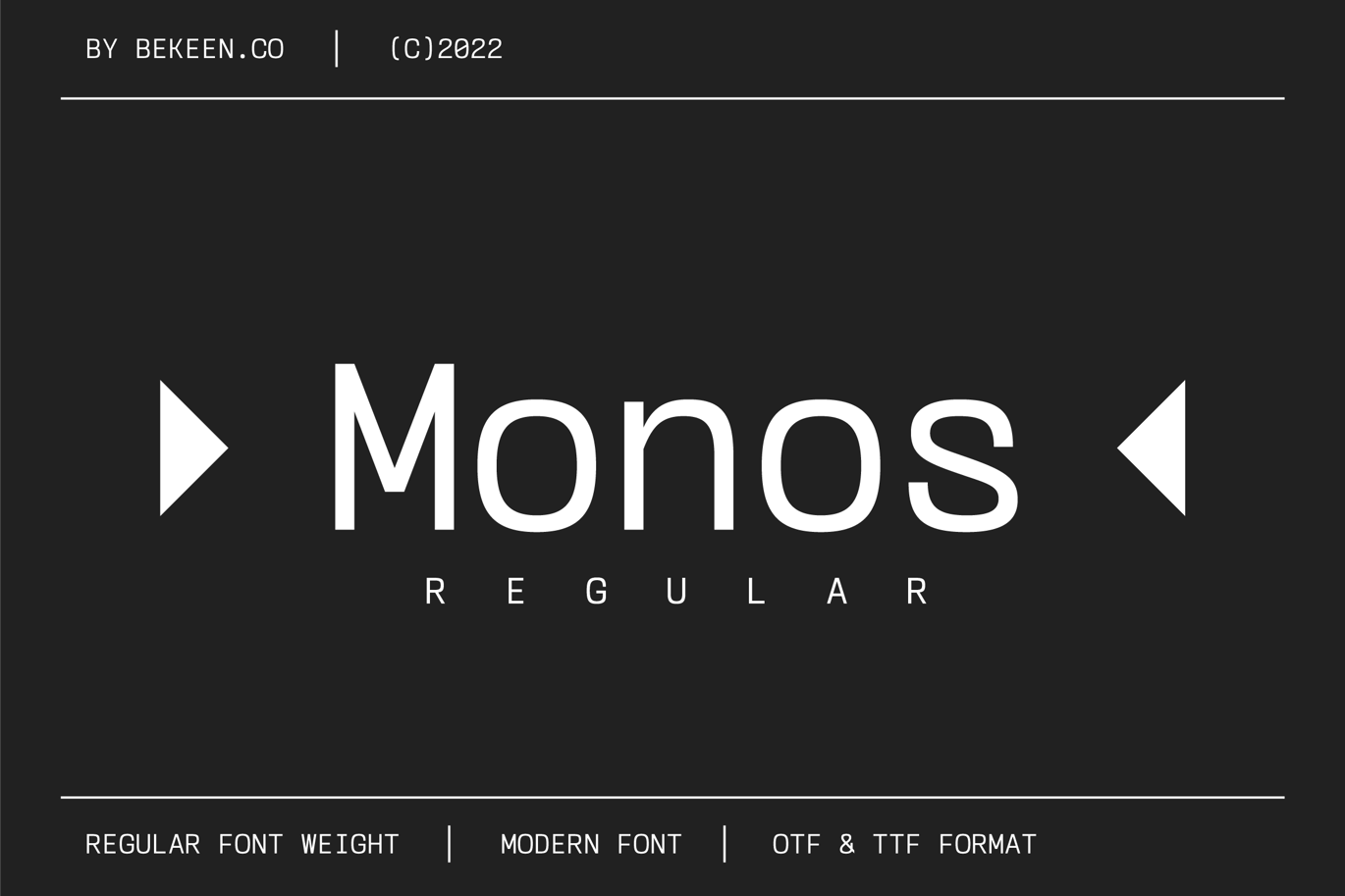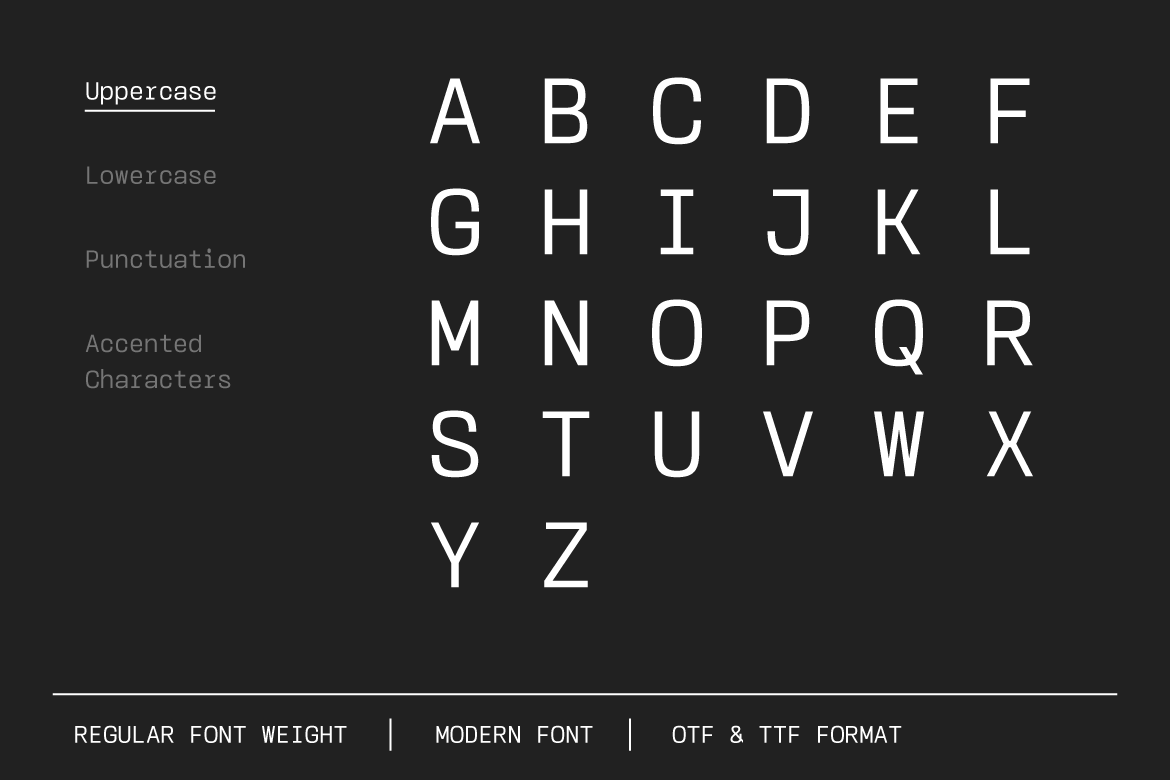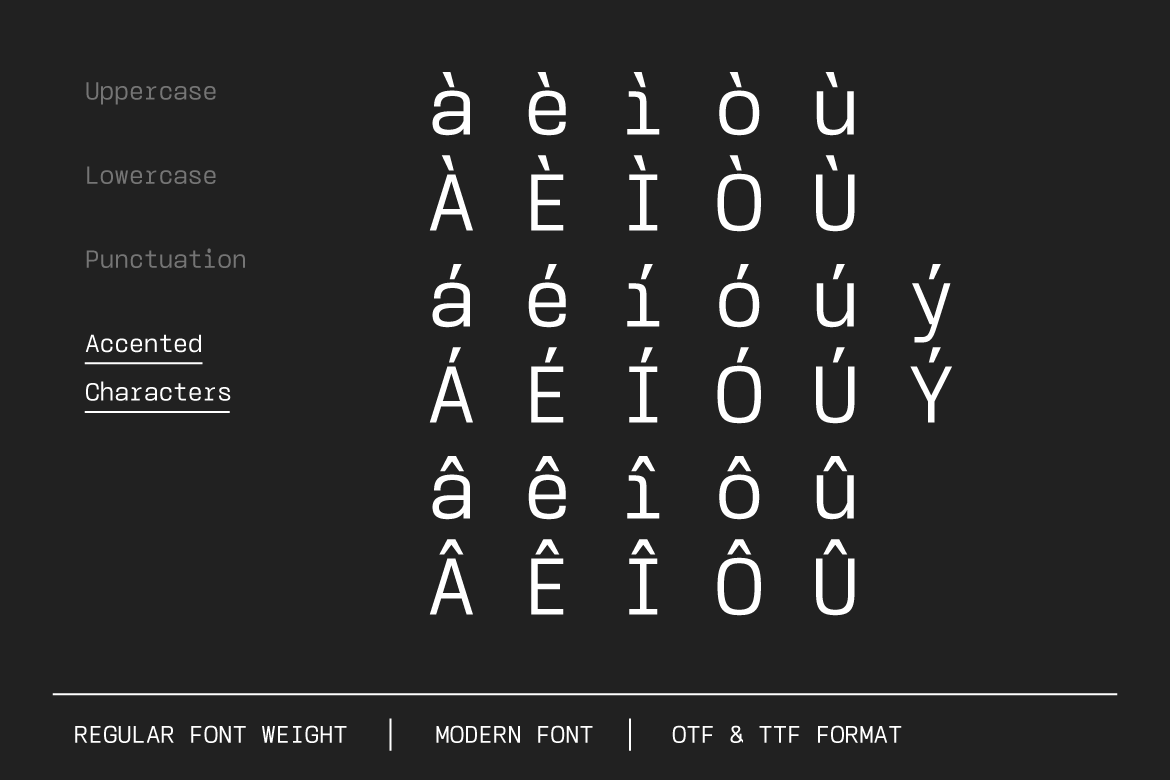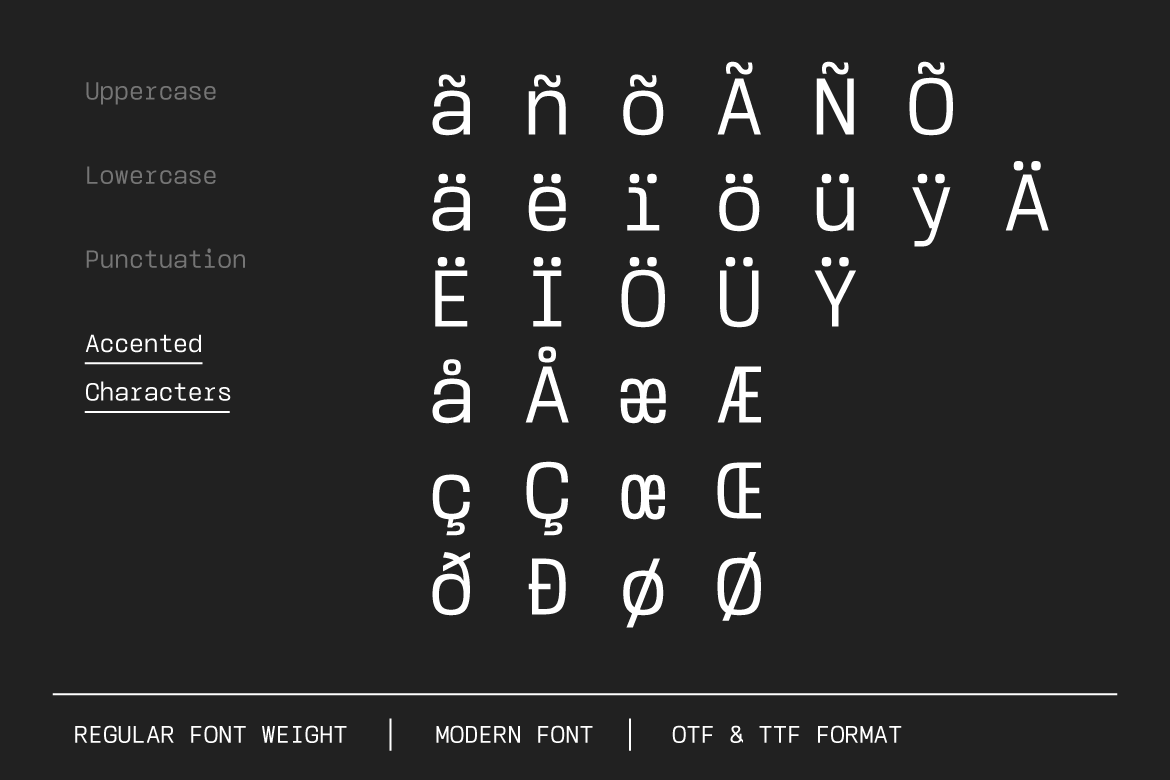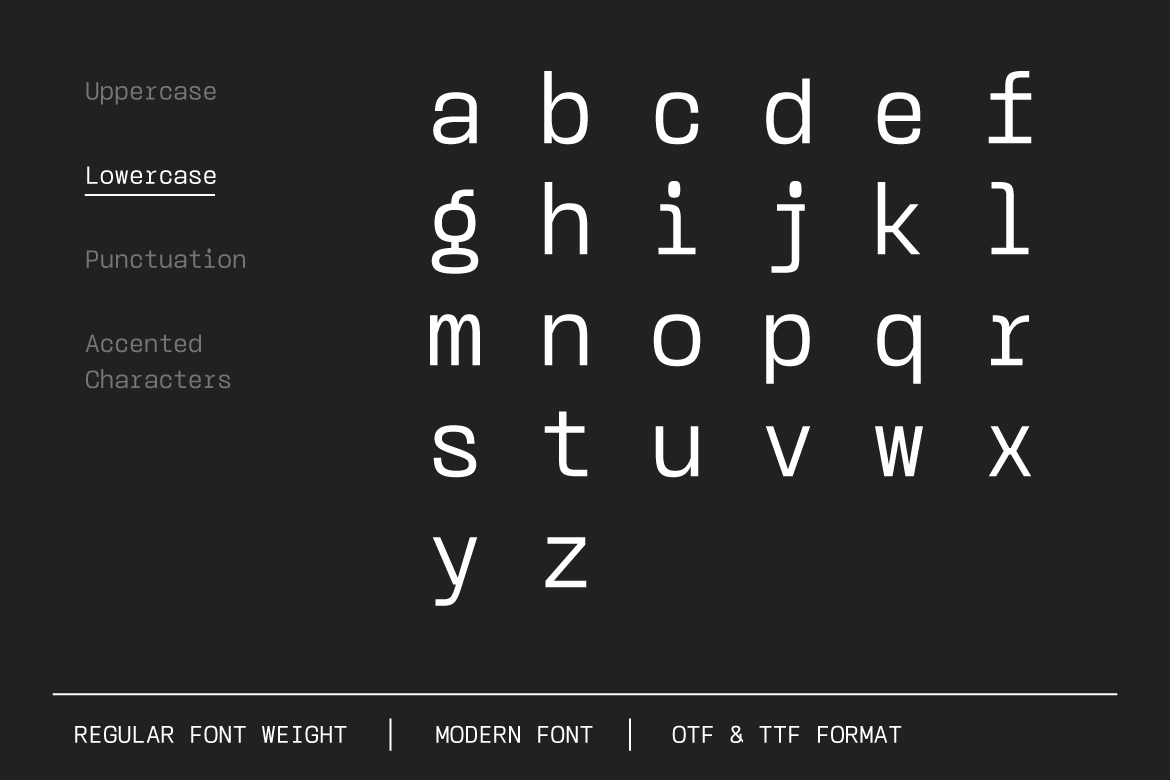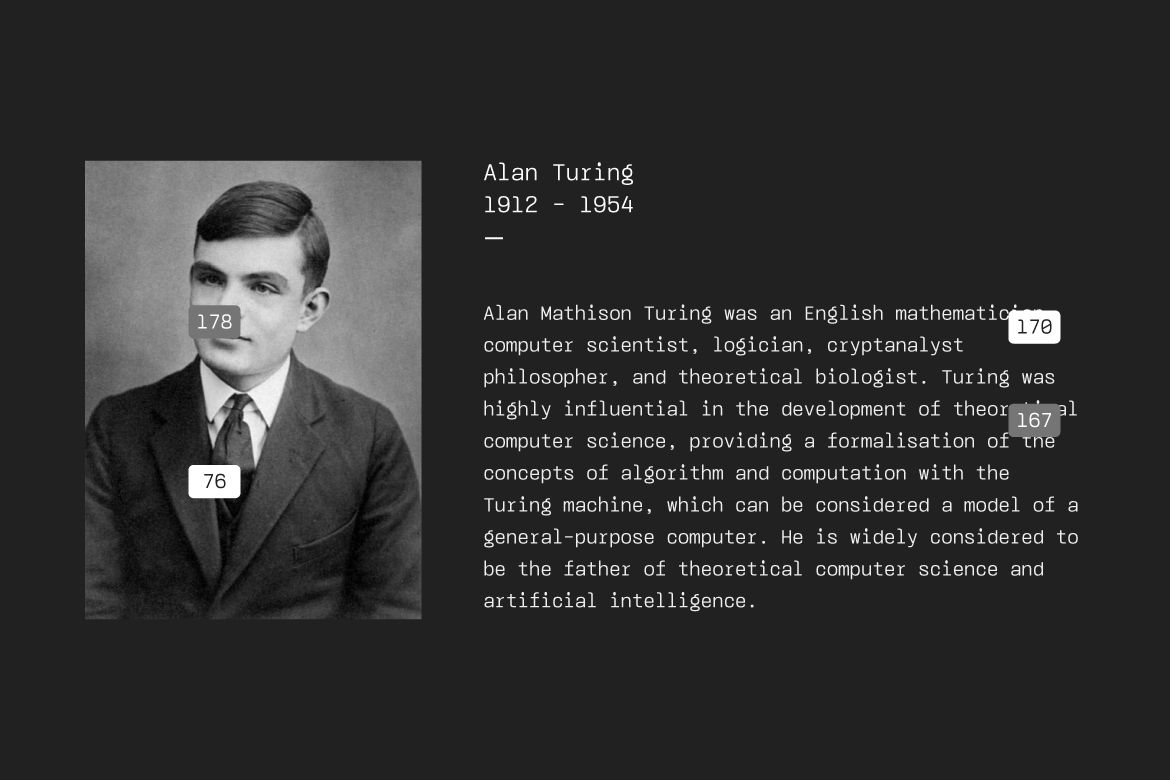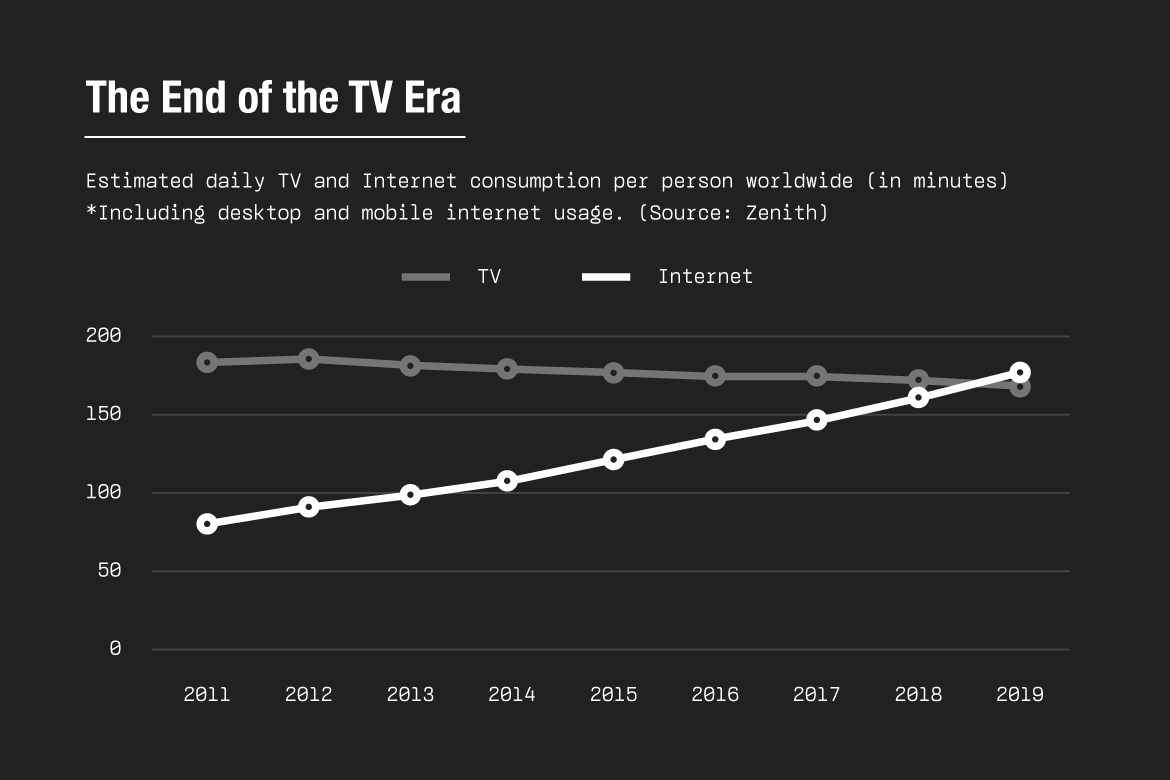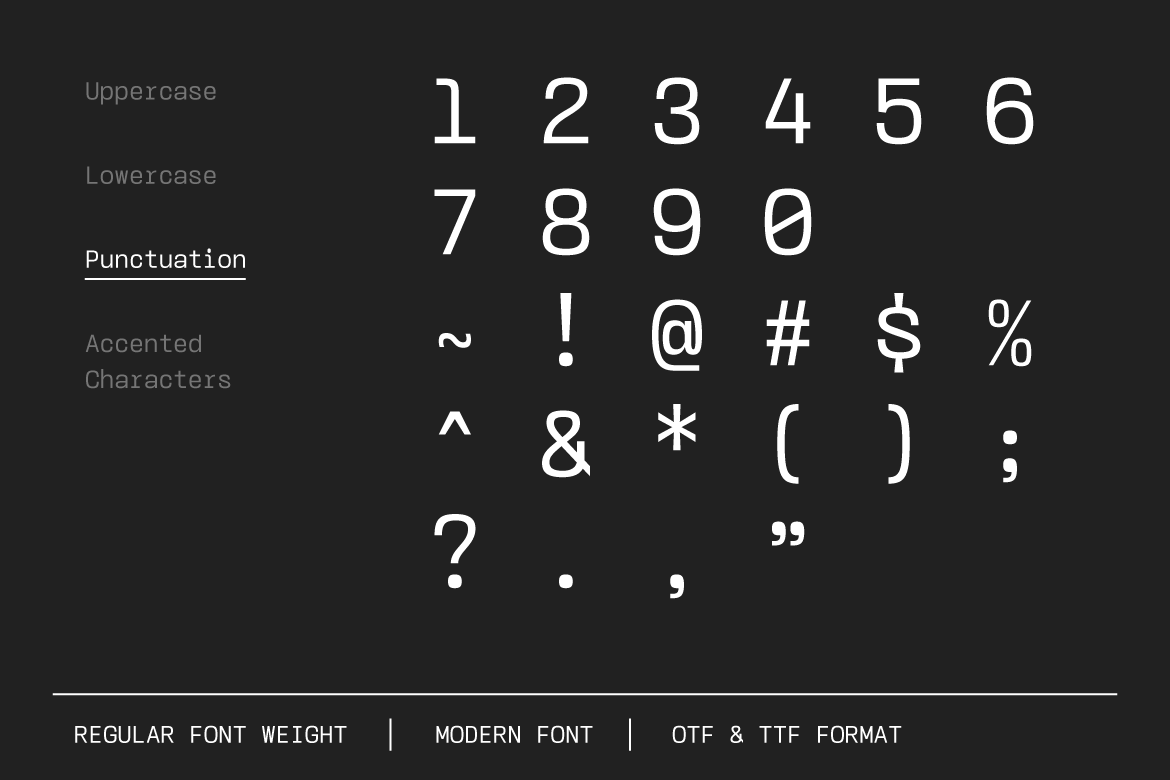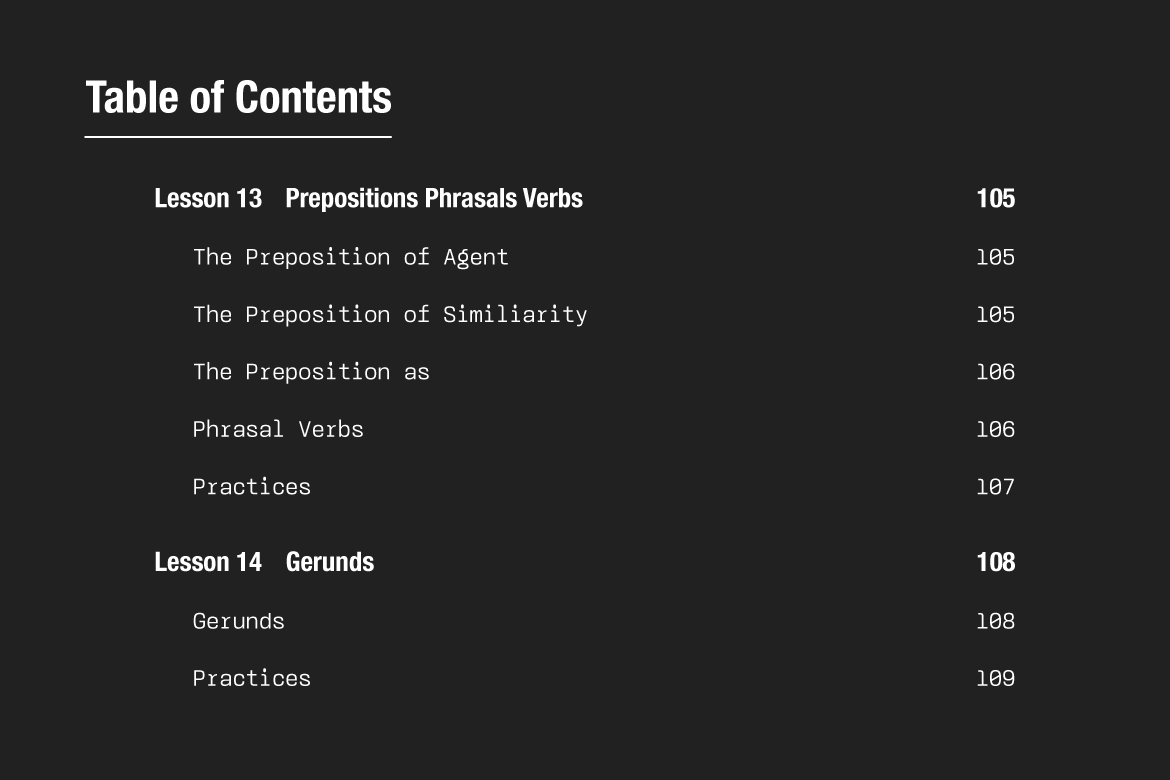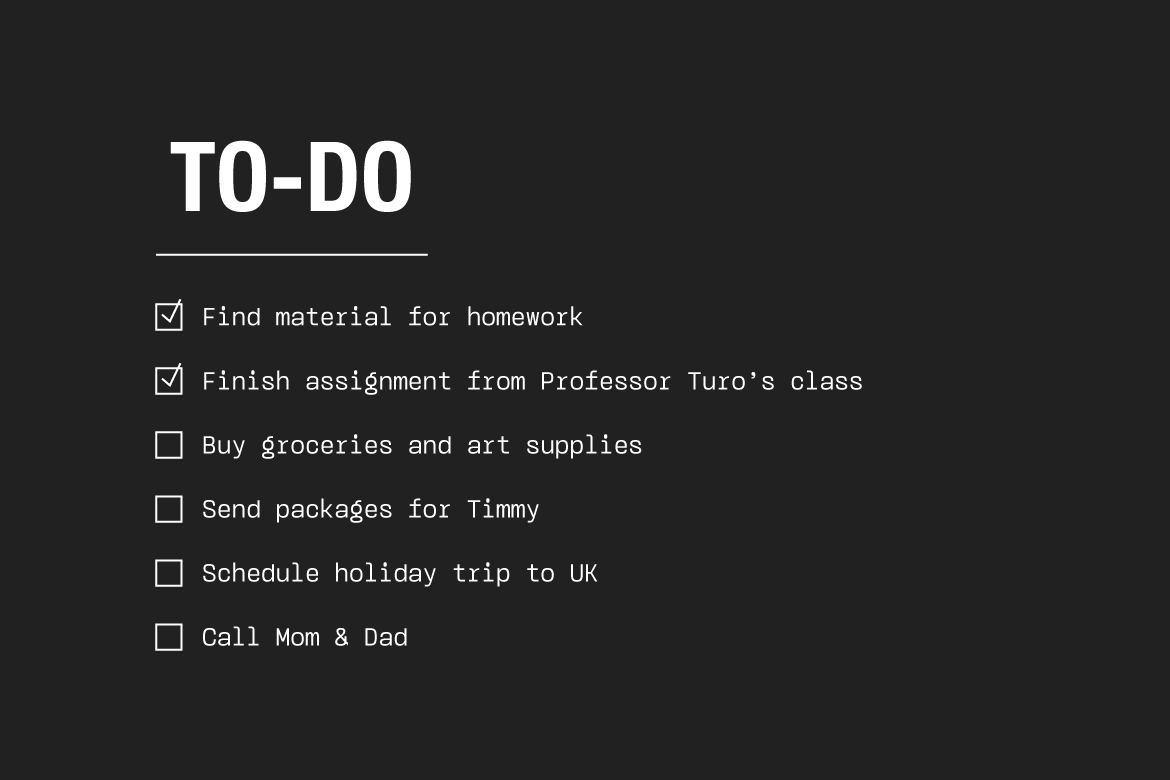
Monospace Font
A modern monospaced font with futuristic themed, thinking about Interstellar or Gravity. Monos is sleek and sophisticated, suitable for heading and paragraph as well. It’s perfect for movie titles, game titles, websites, mobile apps, posters and more.
- UPPERCASE and lowercase
- Numerals and punctuation